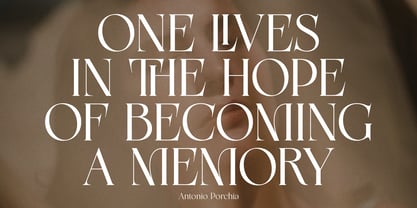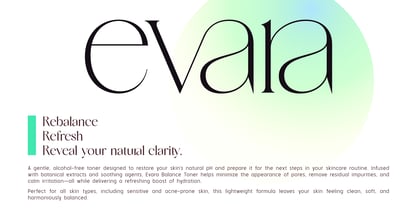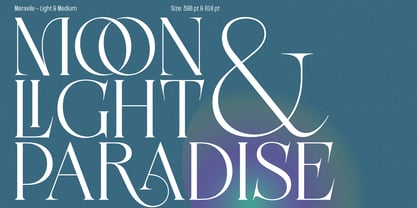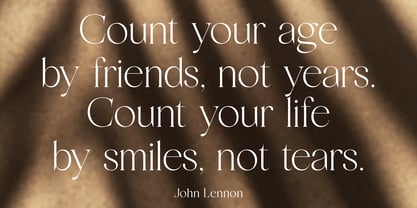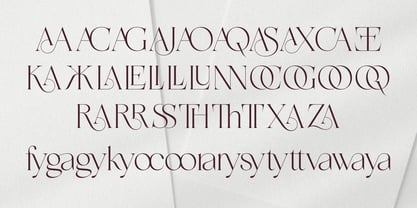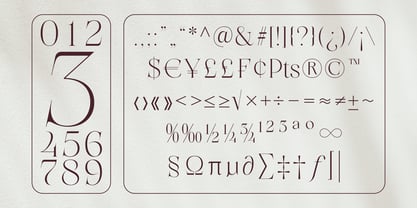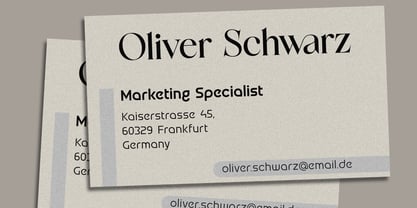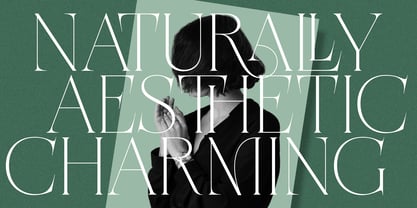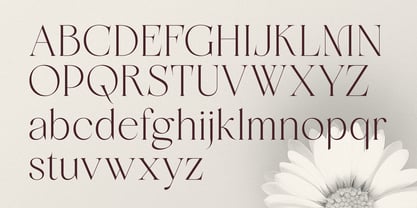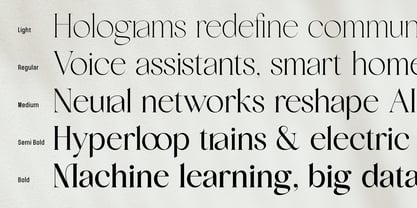
Meravila VF
by Sign Studio
The Meravila VF Font Family was designed by Sugi Yanto and published by Sign Studio. Meravila VF contains 1 styles. More about this family
Meravila Variable – A Sophisticated Serif with Timeless Charm
Meravila VF is a modern serif typeface that blends classic elegance with contemporary refinement. Designed to convey beauty, clarity, and balance, Meravila VF stands out with its medium contrast strokes and a collection of elegant ligatures that add personality and flair to your typography.
Now available as a Variable Font, Meravila VF gives you seamless control over its full weight range—from Light to Bold—within a single, flexible file. This makes it even more versatile and efficient for both print and digital projects.
Its clean structure and stylish character shapes create a harmonious reading experience, while the included OpenType features—Standard Ligatures, Discretionary Ligatures, and Stylistic Sets (ss01 & ss02 for Ampersand alternates)—expand your creative possibilities.
Supporting a wide range of Latin-based languages, Meravila VF is the perfect choice for editorial design, branding, packaging, logos, and digital content. Sophisticated, timeless, and future-ready.